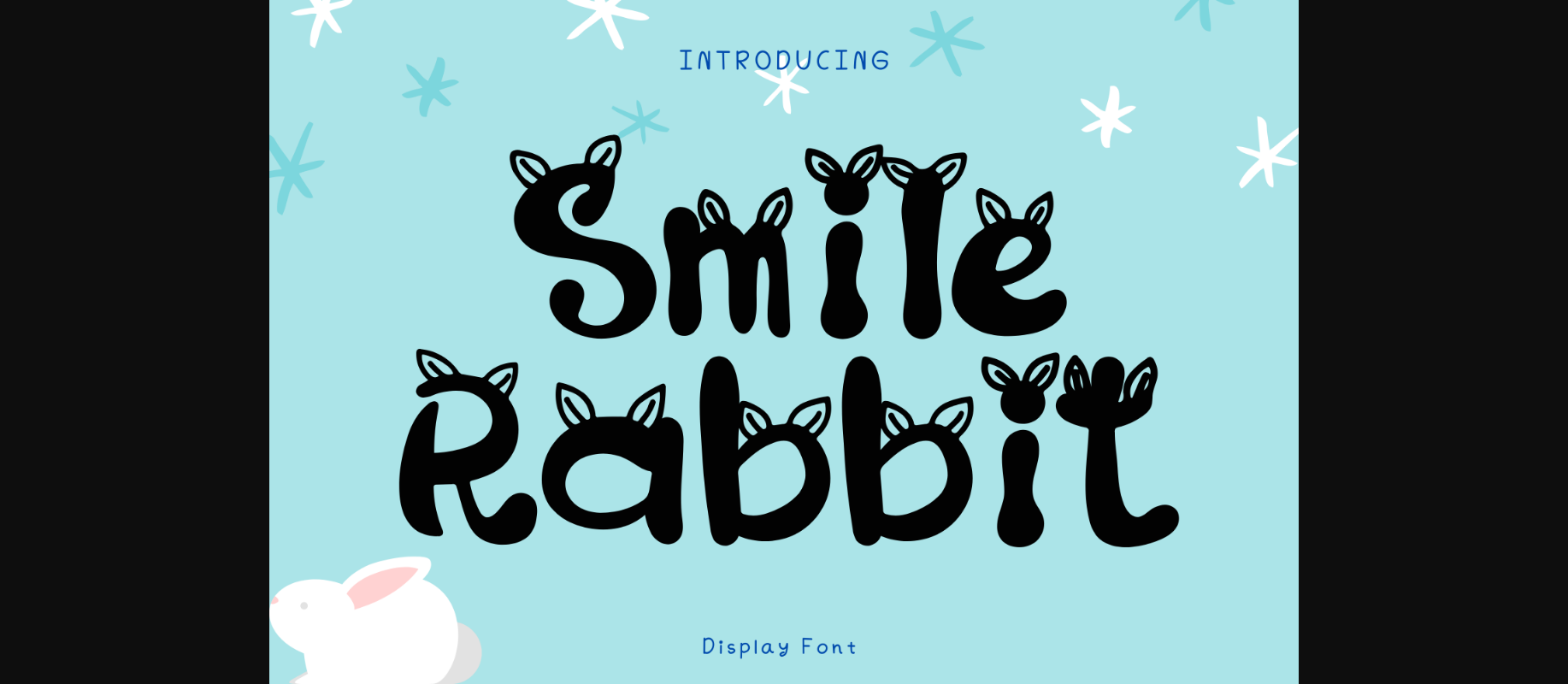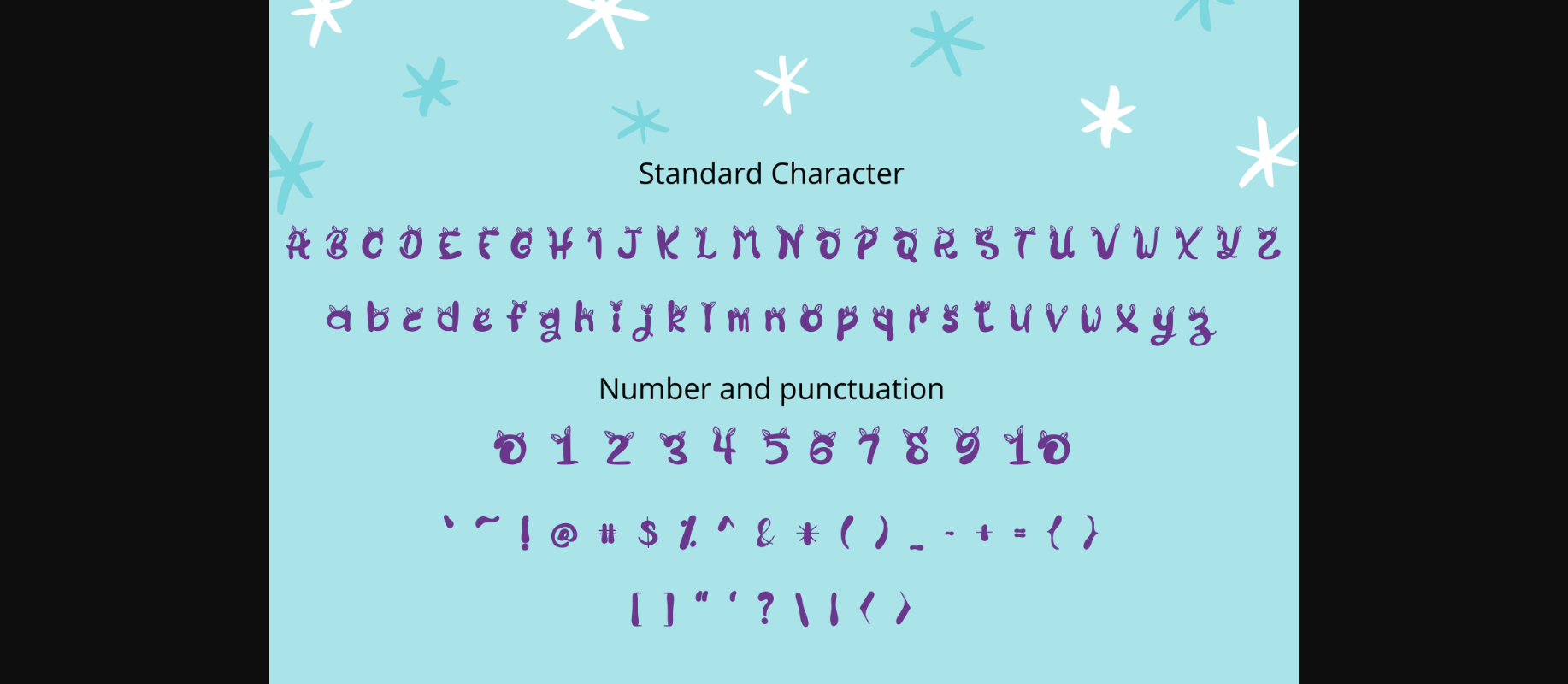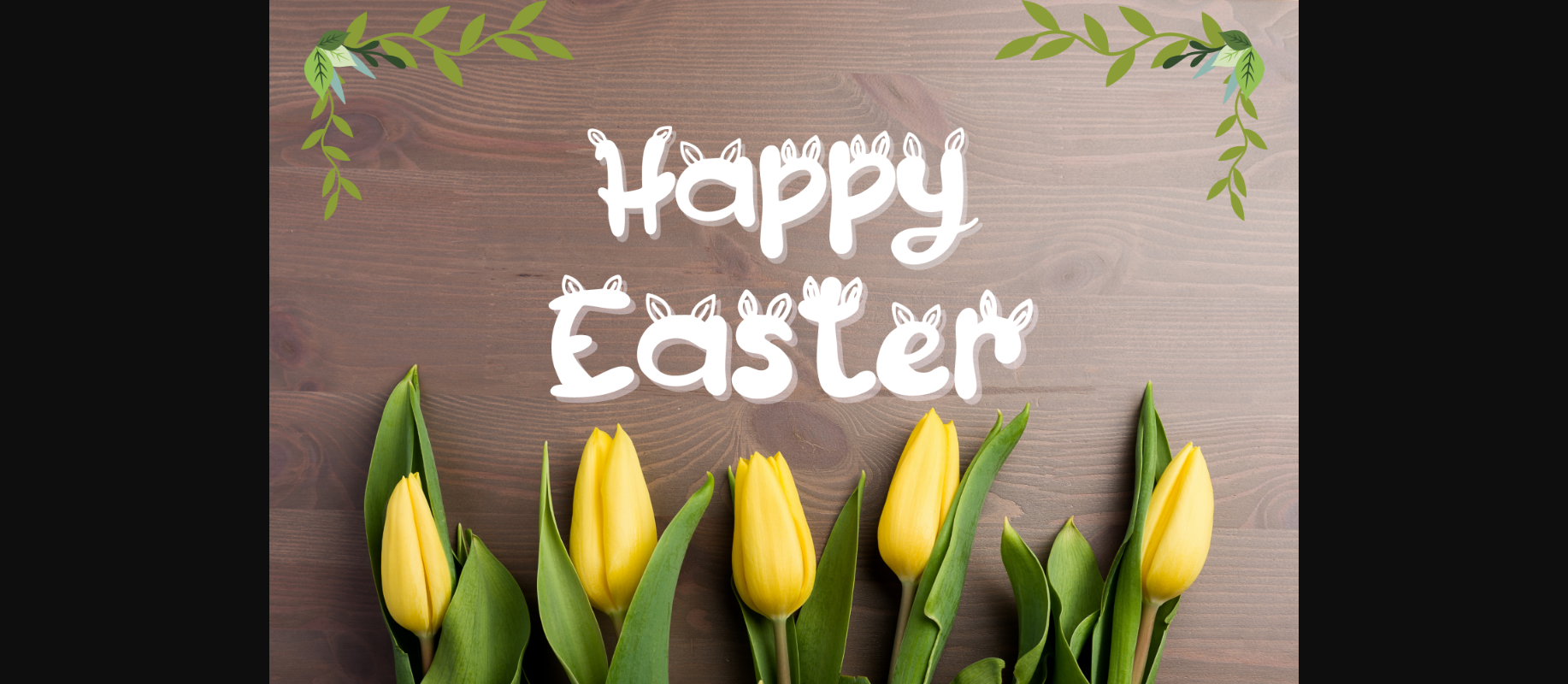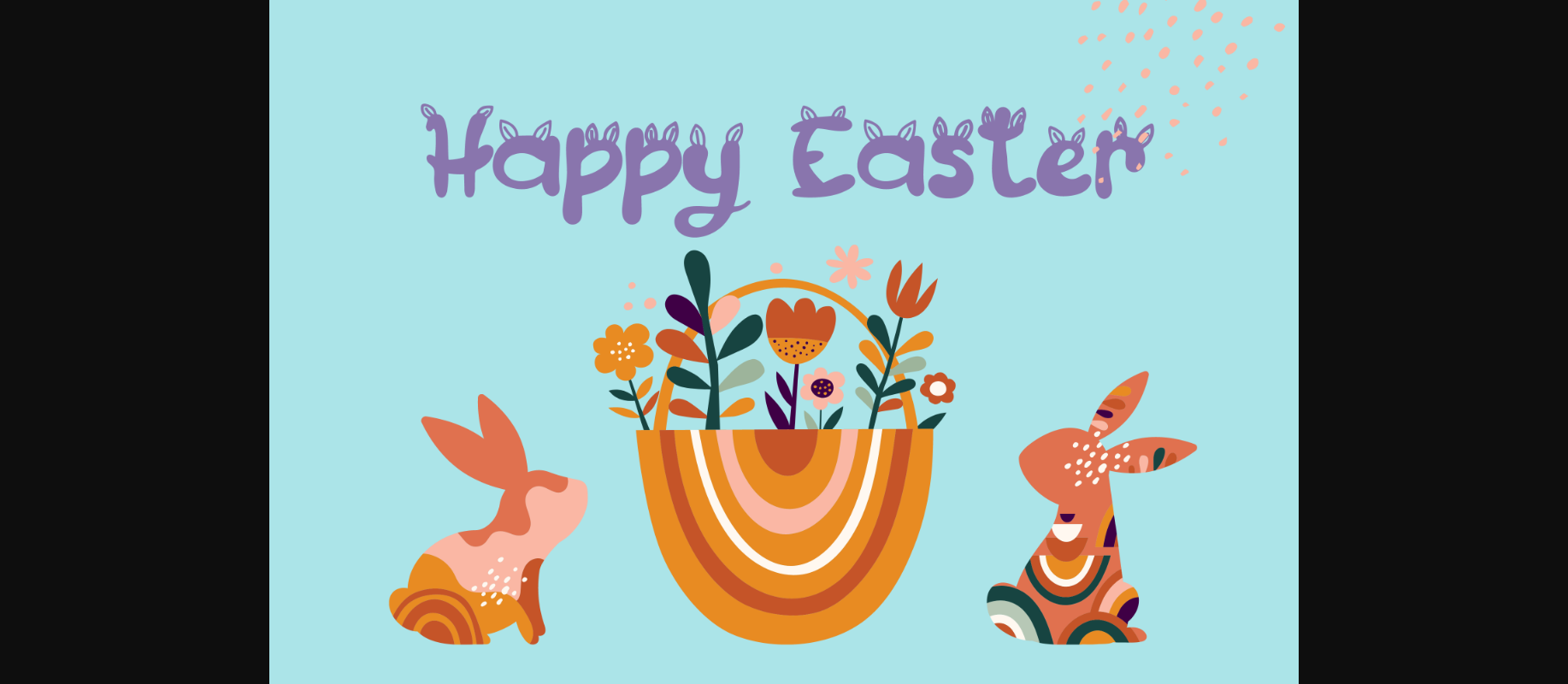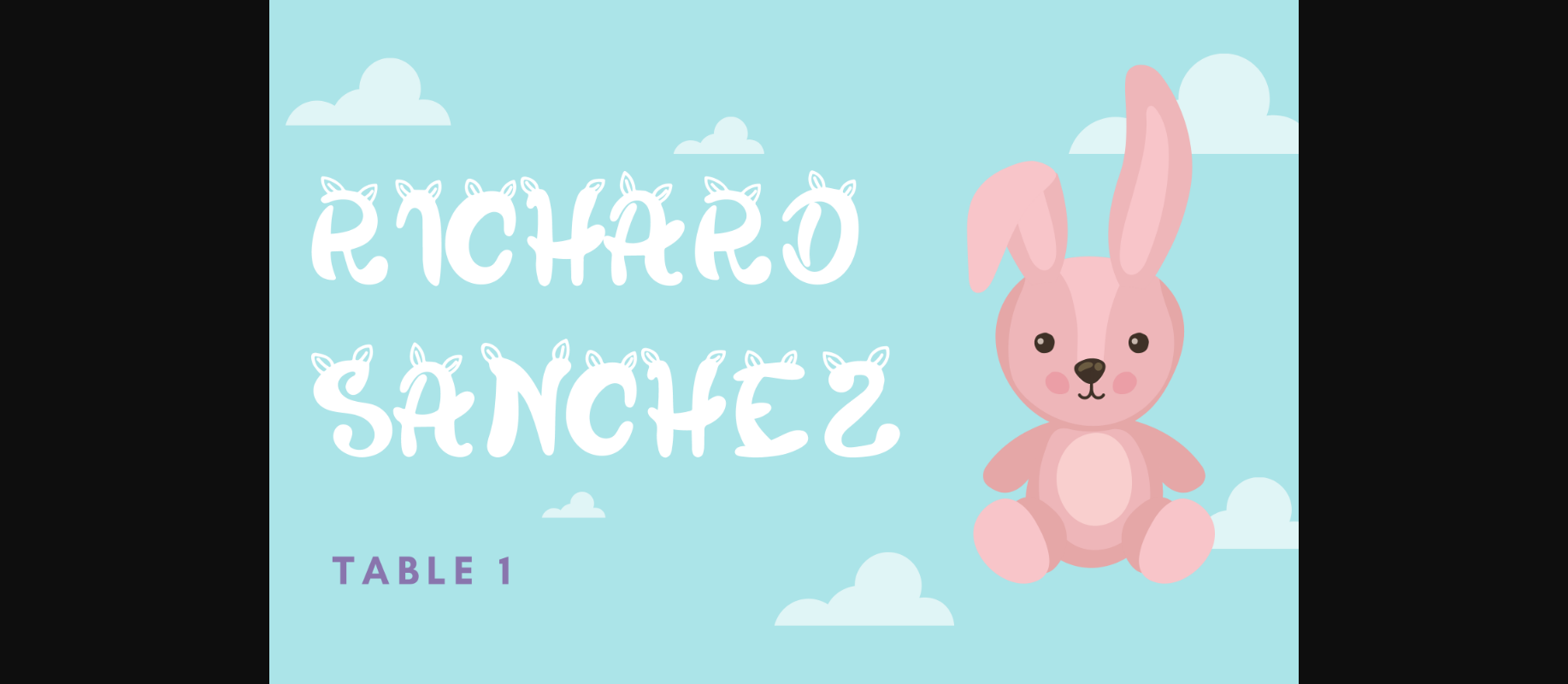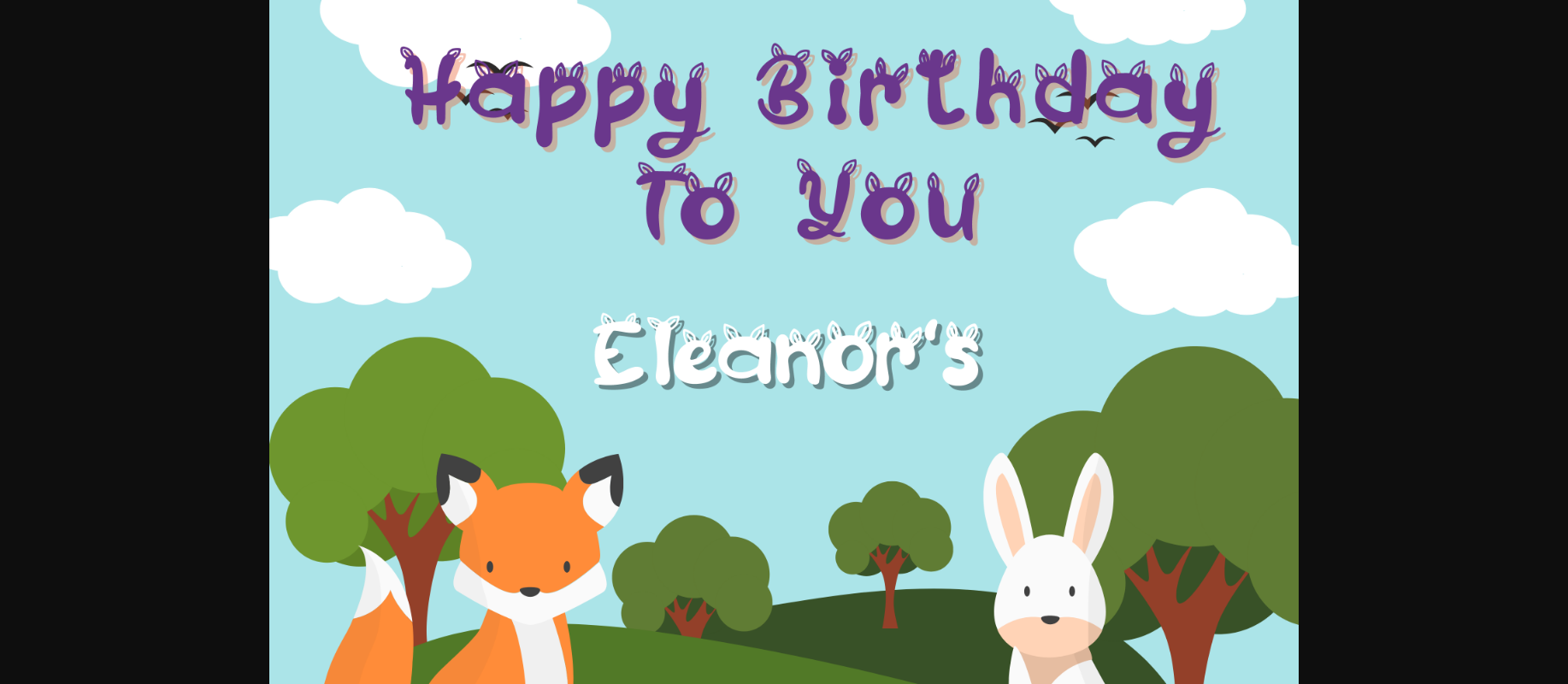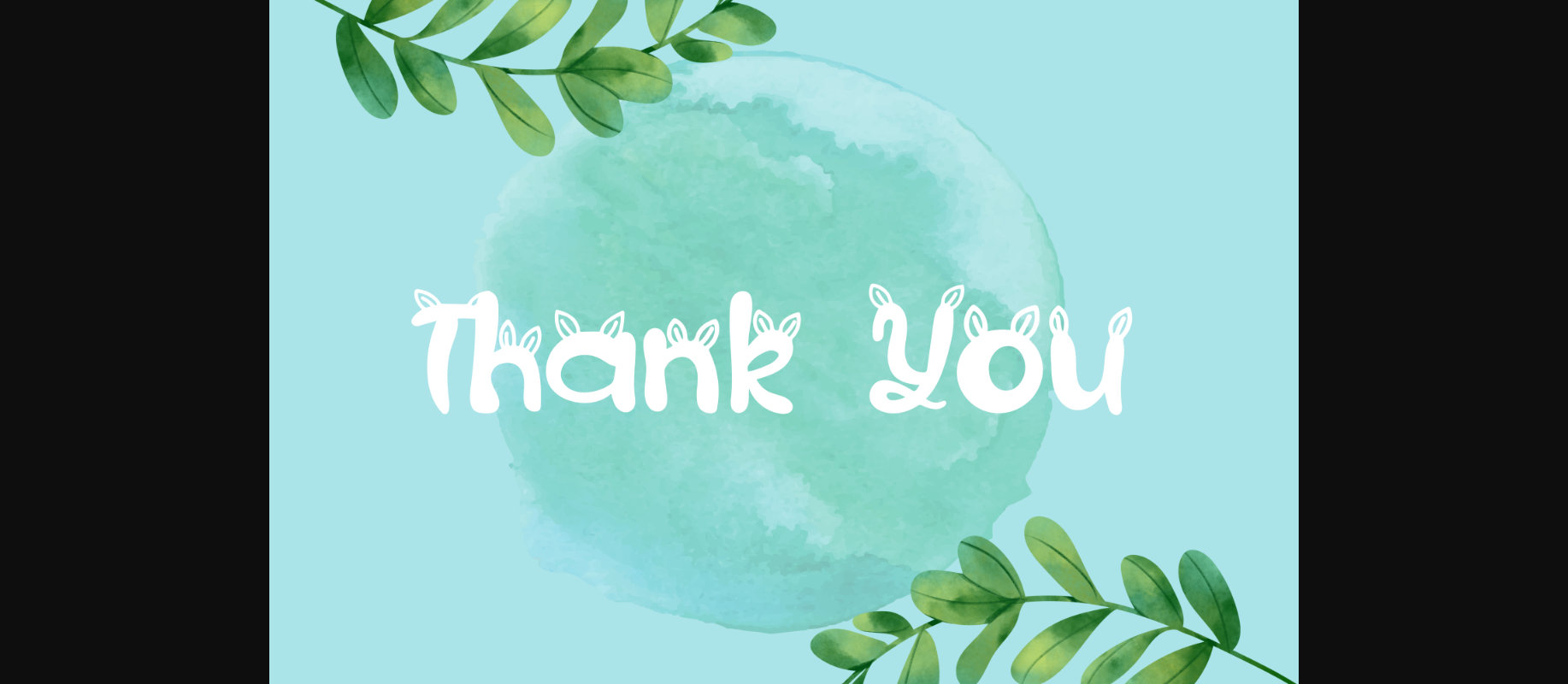
Smile Rabbit Font
About Smile Rabbit Font
Smile Rabbit Style is a whimsical decorative font. It can easily be matched to an incredibly large set of projects, so add it to your creative ideas and notice how it makes them stand out!